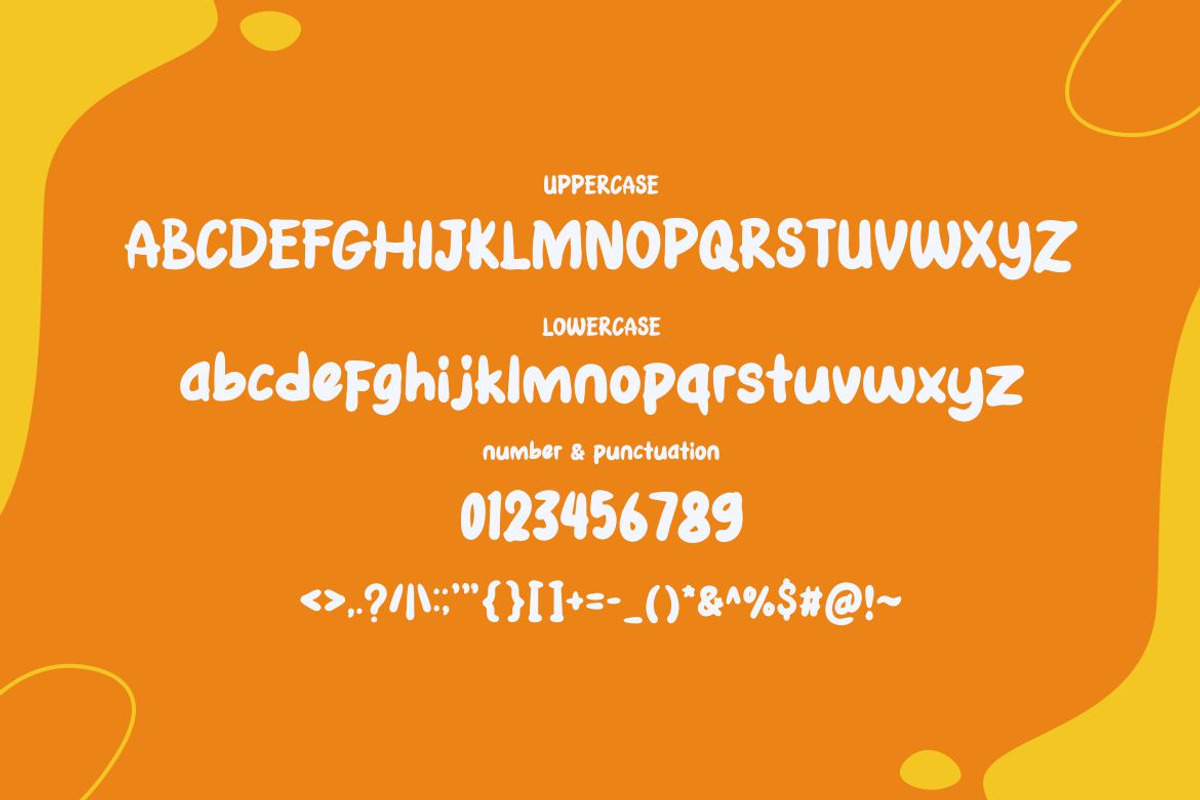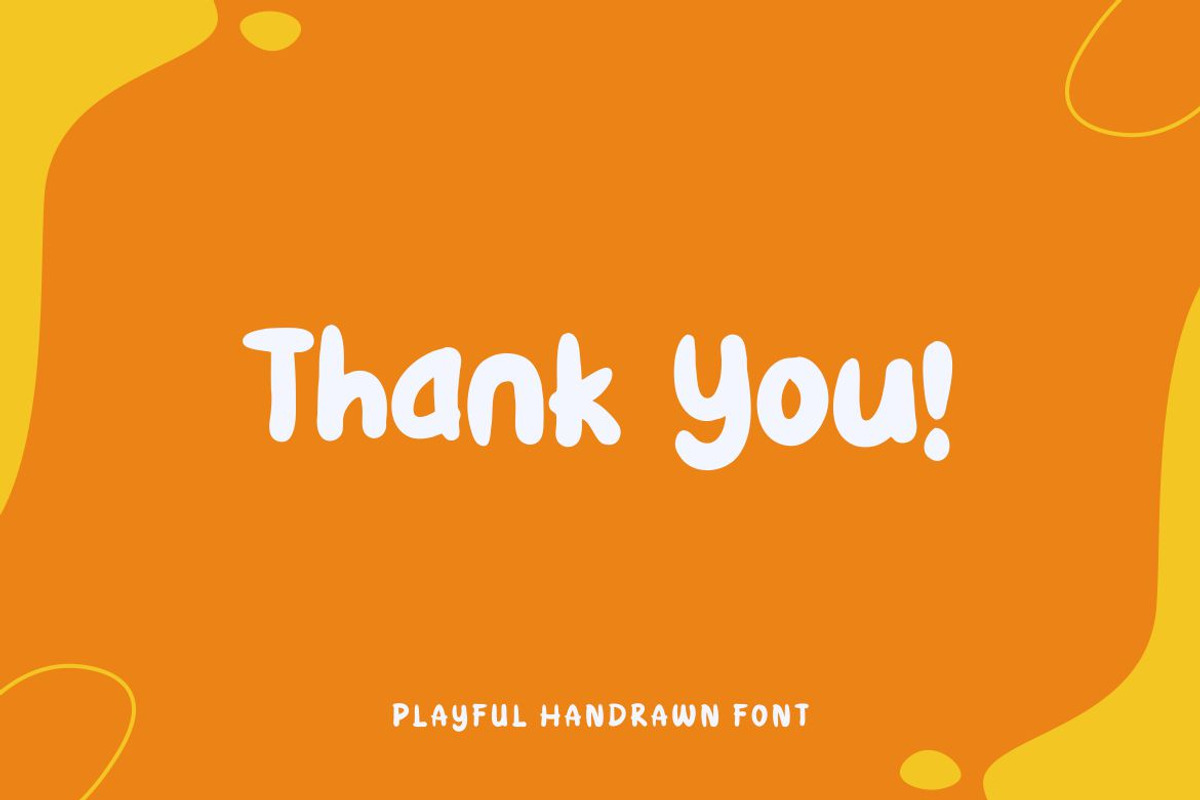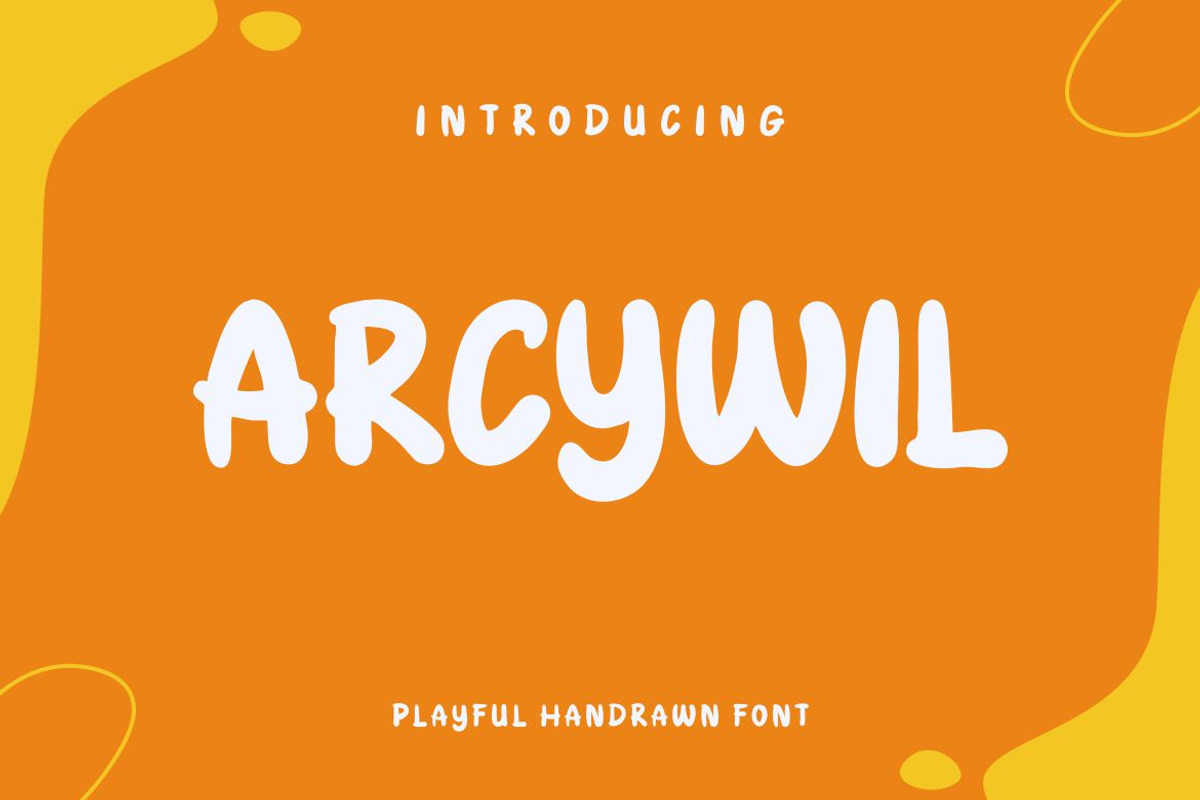
ARCYWIL
Introducing ARCYWIL , a cool and elegant sans serif. Elegant font feel. This font gives you a beautiful and modern atmosphere. suitable for posters, book covers, cards, merchandise, etc.